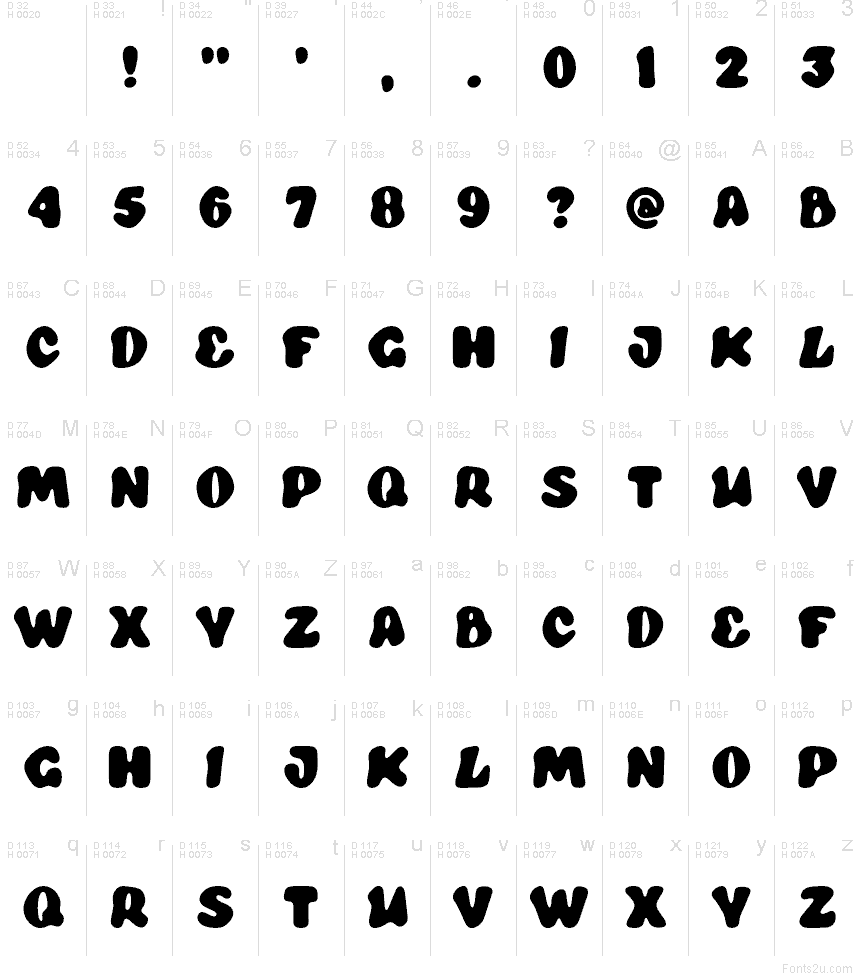
THE KIDS FONT DEMO
The Kids Font font by Sven Pels is a free cartoon display typeface that feels like it’s been cut from soft foam and squished onto the page. Its bold, bubbly letters have rounded edges and a chunky weight that reads instantly as kid-friendly, without turning messy or chaotic. The spacing is generous and even, so big words stay readable while still looking loud and excited.
Using The Kids Font, your titles pop on children’s book covers, birthday invitations, toy packaging, classroom posters, kids’ apps, and playful logos. This free font works best at larger sizes where its plump curves can really shine; pair it with a clean, light sans serif for body text to keep everything clear and balanced.